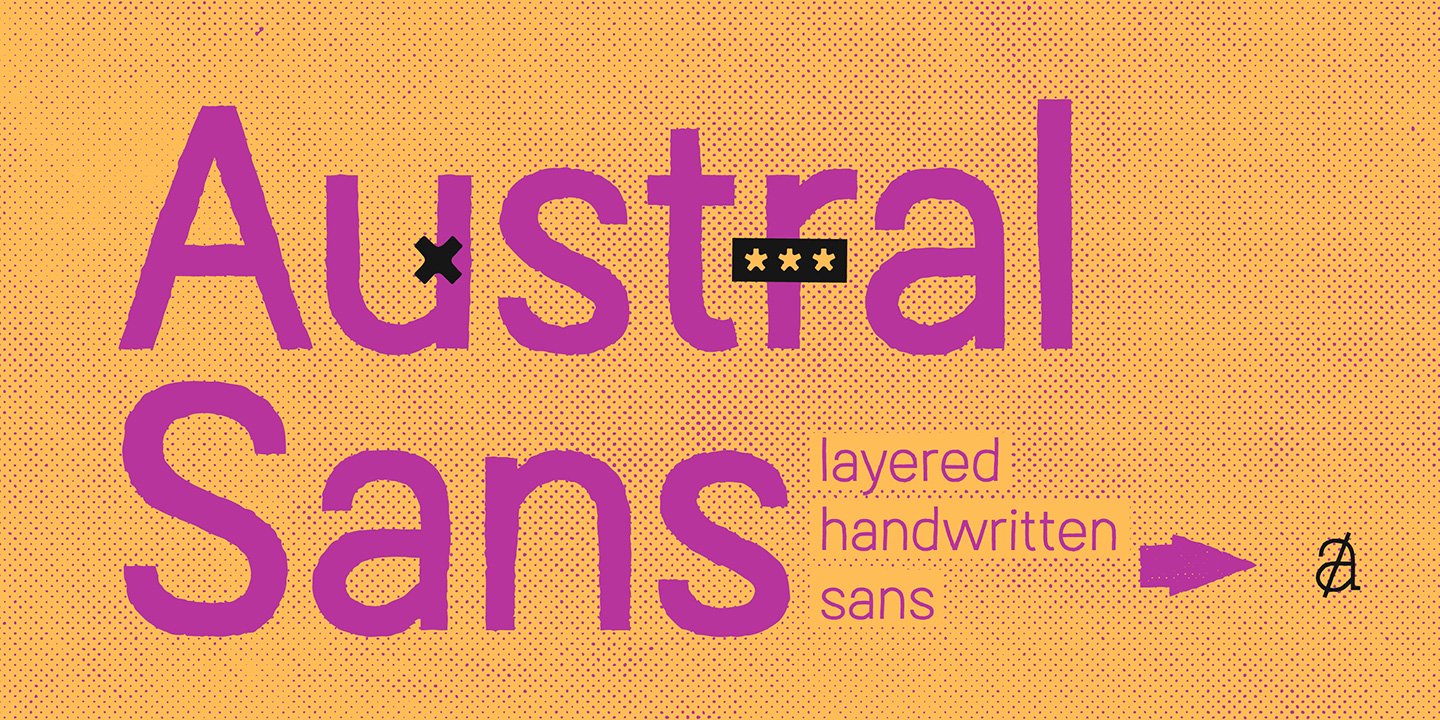
Austral Sans is a hand-drawn layered font designed by Antipixel. Based in the Slab version, it is part of the Austral type family. This sans makes your wor...